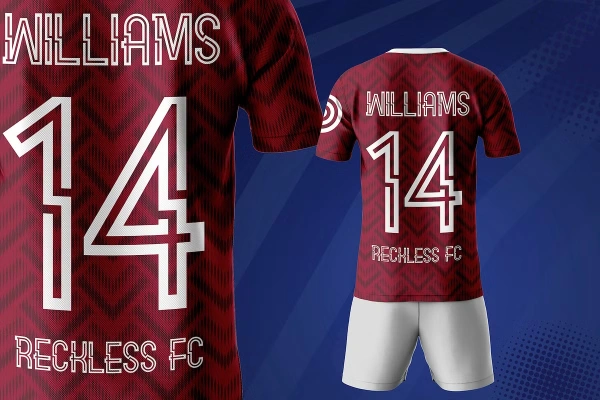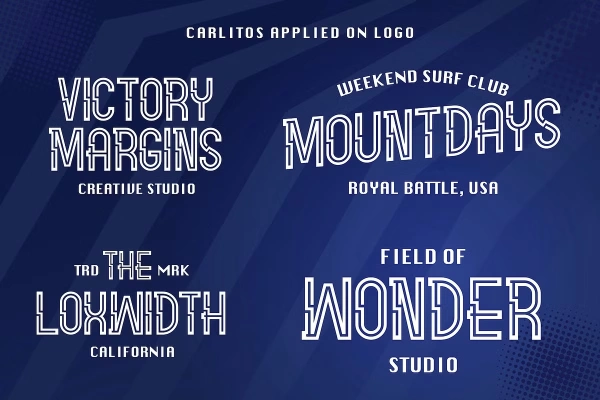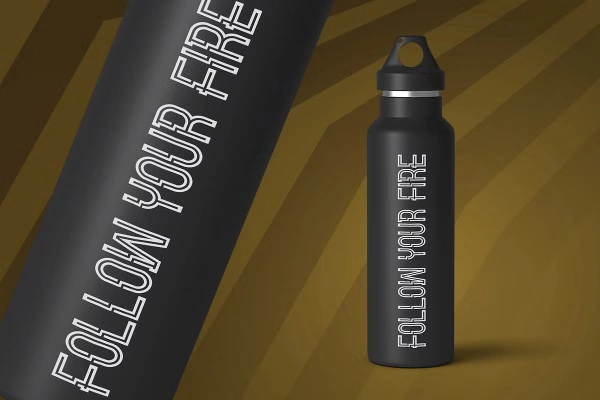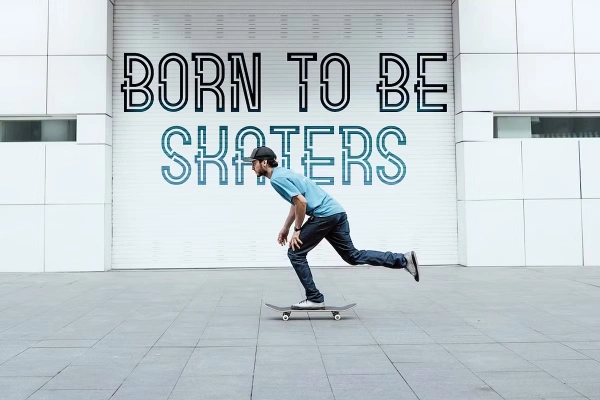
Carlitos Font
About Carlitos Font
I’m a typographer and graphic designer who spends most of my time testing typefaces in real-world branding projects. During a recent search for a bold, sporty look, I came across the Carlitos Font. Its modern energy stood out right away.
I tested it on a sports branding project, placing it across jerseys, posters, and digital ads. The way it carried energy and movement impressed me. I wanted to share this review because this typeface deserves recognition. Fonts are not just tools, they shape emotion. Carlitos proved its strength by transforming a simple layout into something powerful and full of character.
About the Font and the Designer
Carlitos Font is a decorative display typeface designed with sports in mind. It combines a bold style with a modern edge that makes it ideal for athletic and energetic design projects. This font family supports uppercase, lowercase, numbers, and punctuation, offering enough flexibility for both headlines and secondary text.
Created by StringLabs, Carlitos is part of a growing library of fonts tailored for branding needs. The studio is known for playful yet professional designs that balance creativity with usability. Carlitos continues this tradition by offering strong, legible characters that shine in bold settings.
Features of the Carlitos Font
The most defining feature of Carlitos Font is its bold and sporty voice. Its letterforms feel confident, making it perfect for projects that need impact. Unlike handwritten styles, this font thrives in structured contexts where strength and clarity matter.
The font includes full multilingual support, which expands its usability for international sports brands or teams. Designers don’t have to worry about missing characters. From numbers for jerseys to punctuation for posters, everything is covered.
Attention to detail is evident in the consistent spacing and alignment of characters. This gives the typeface a professional polish while keeping its playful, energetic look. Unlike some generic sporty fonts, Carlitos balances sharpness with readability, ensuring text remains clear at different sizes.
Because of this blend, Carlitos works in both modern branding systems and more traditional text settings. Its strong structure helps it stand out, while its clean execution avoids clutter, making it one of the more versatile sporty display fonts available today.
The Carlitos Font was built for high-energy contexts. Sports branding is its natural home. Football, basketball, and soccer jerseys look powerful when set in Carlitos, giving teams a professional and confident presence. Posters for tournaments or events gain immediate attention when the bold lettering takes center stage.
Beyond sports, it’s versatile enough for modern website headers. The bold characters make a strong first impression on landing pages, while the cleaner cuts hold up for subheadings. In digital ads, it ensures messages stand out in fast-scrolling environments.
For print, Carlitos works well on packaging for activewear, supplements, or any brand connected to energy and motion. Its boldness makes logos pop, while its clarity ensures legibility even at smaller sizes. Designers working on branding projects that want a dynamic, approachable, yet strong identity will find Carlitos especially useful.